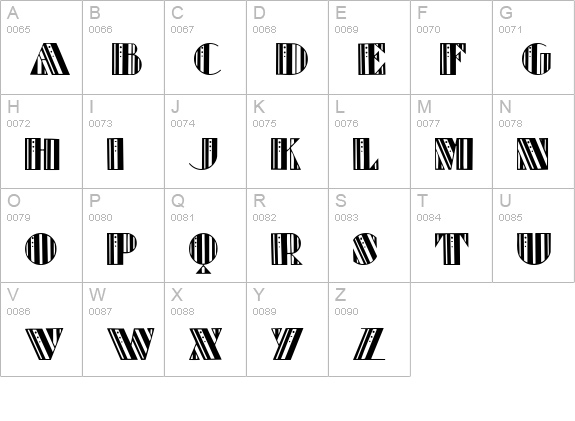
Retro Elite Font Details
The Retro Elite font is a timeless and stylish typeface that effortlessly captures the essence of vintage design. With its elegant and sophisticated letterforms, this font brings a touch of nostalgia to any project. Its sleek curves and sharp edges create a harmonious balance, making it perfect for both headlines and body text. The Retro Elite font offers a wide range of characters, including uppercase and lowercase letters, numbers, punctuation marks, and special symbols. Each glyph is meticulously crafted to maintain a consistent and authentic retro look. Whether you're designing a logo, poster, or website, this font will surely make a lasting impression. And the best part? The Retro Elite font is completely free! You can easily download it from FontsMarket.com, a trusted website for high-quality fonts. This means that you can use this amazing font in both personal and commercial projects without any restrictions. So why wait? Enhance your designs with the Retro Elite font today and transport your audience to the golden age of typography.